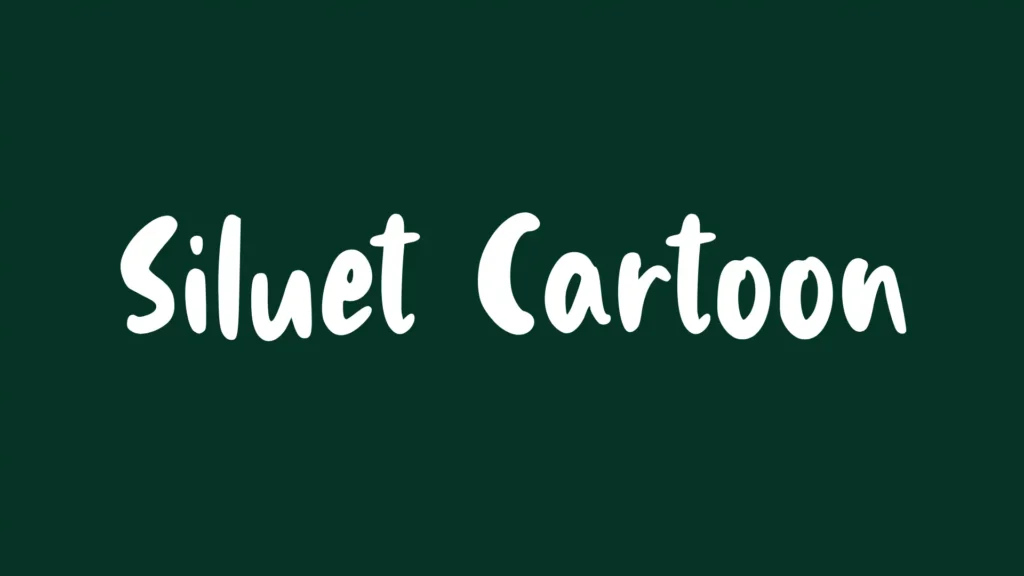
Siluet Font
Siluet Font Preview
Siluet
Siluet is a cartoon font designed by Muhammad Husni Haikal. Its bouncy, rounded letters feel playful, like lettering from a cartoon or a comic book. It's a free download, and you can try it with your own text in the preview above first.
What You Can Type With Siluet
With complete upper and lowercase letters and all ten digits, Siluet is ready for real wording, not just a single headline. Everyday marks like &, !, ? and @ are there too. Thanks to its accented letters, it also works for Spanish, French, Portuguese and Italian, not just English.
Where Siluet Works Best
Think of Siluet for kids' books, birthday invites and fun YouTube thumbnails. Cartoon fonts are great for short, fun lines. If you place it over a busy photo, add a thick outline or a drop shadow so it stays readable.
Does Siluet support accented letters?
Yes. Siluet includes the accented letters needed for Spanish, French, Portuguese and Italian, so it works for more than just English.